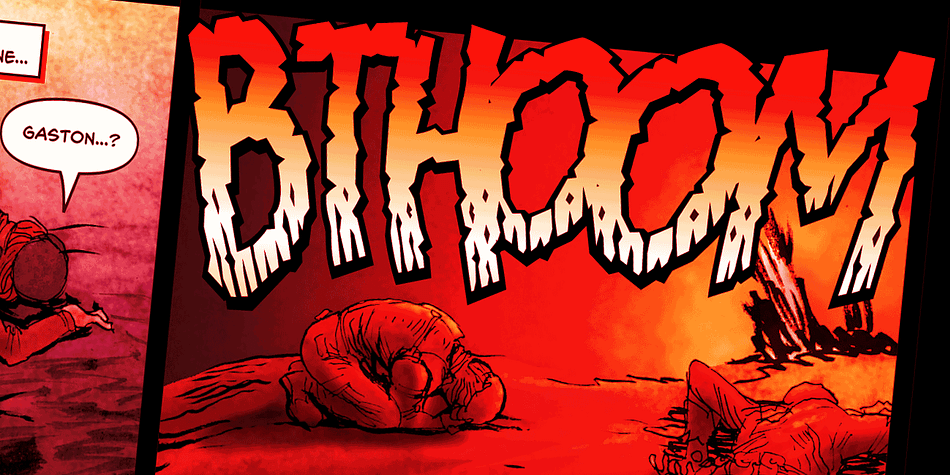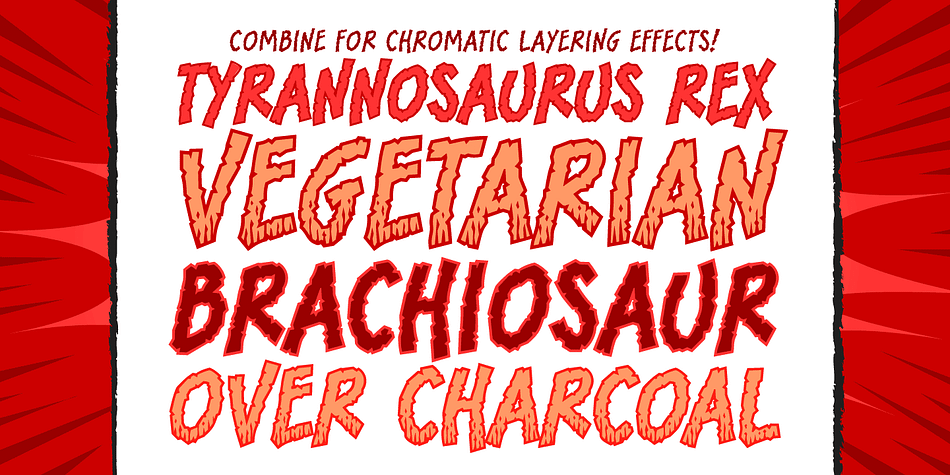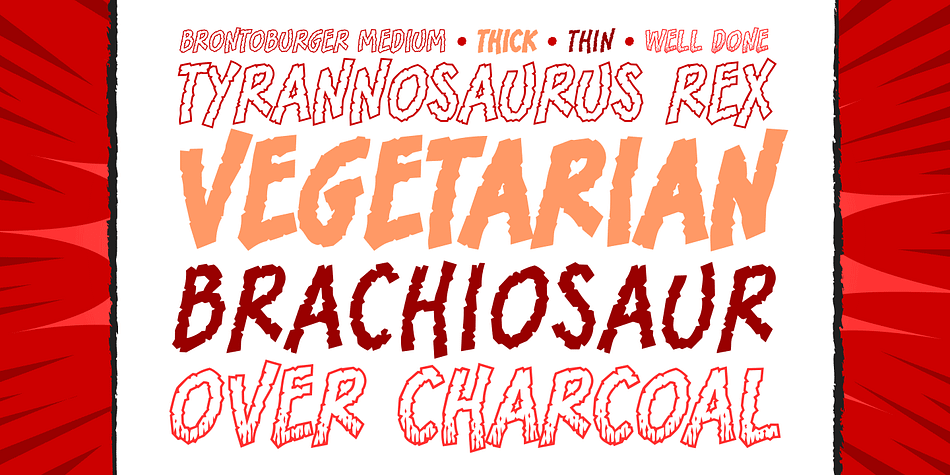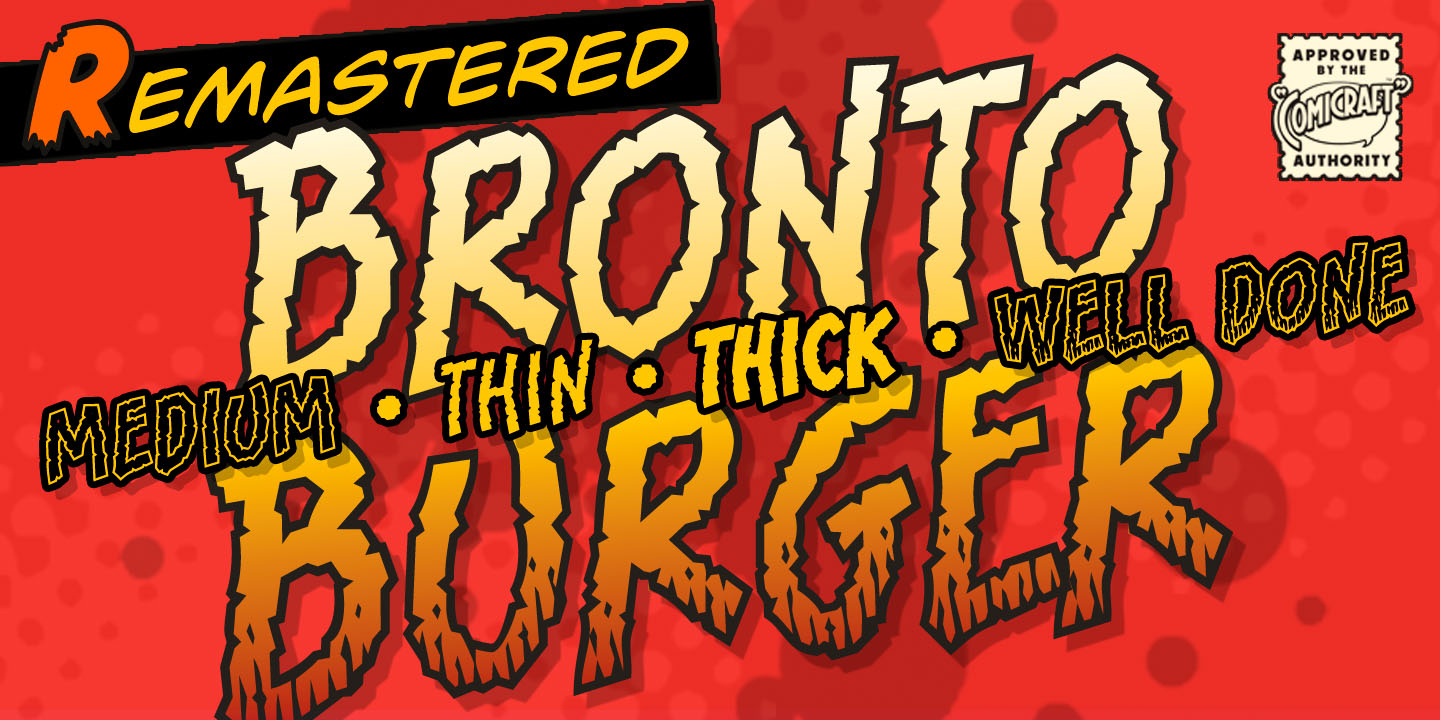
Designed by Richard Starkings, Bronto Burger is a hand display font family. This typeface has four styles and was published by Comicraft.
Eight tons of Meat-eating TYRANNOSAURUS REX vs. one Vegetarian BRONTOSAUR? CRUNCHTIME!
Four fonts (Medium, Thick, Thin & Well Done) with alternate uppercase alphabets.